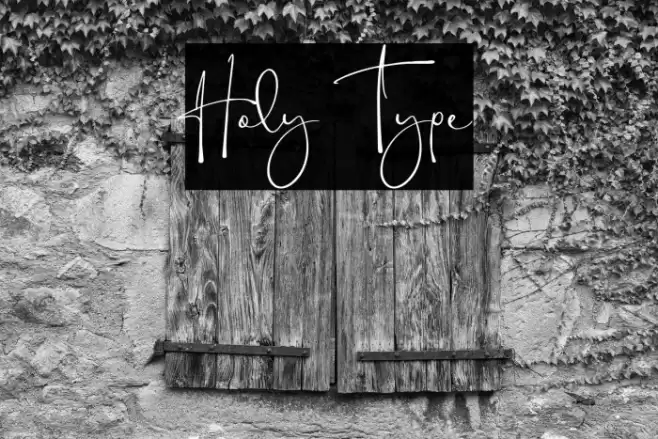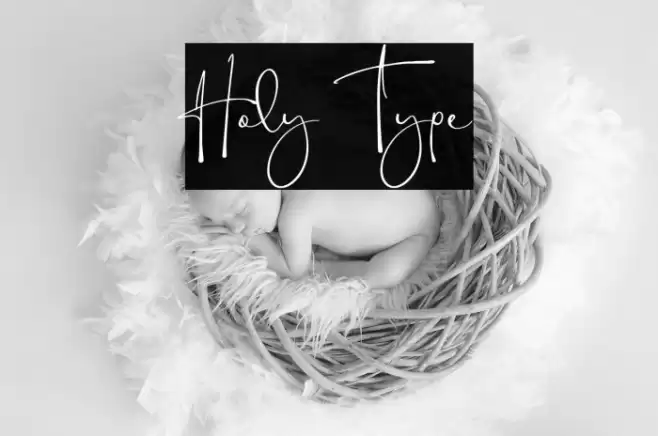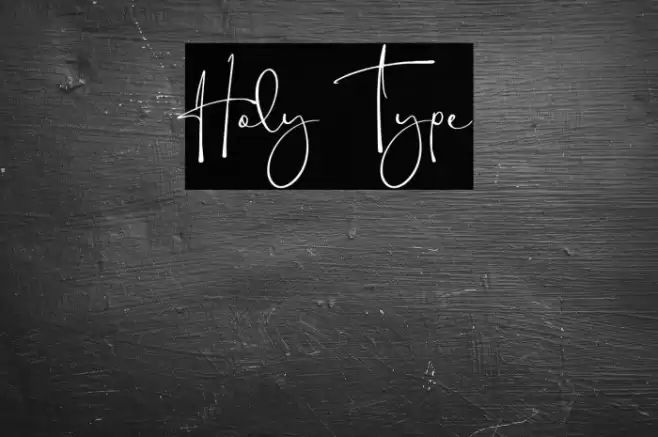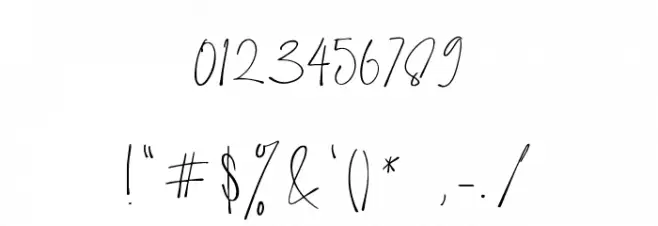
Holy Type Font
Holy Type Description
This font features a whimsical and artistic handwritten style, characterized by its flowing and interconnected letterforms. The uppercase letters are tall and slender, with a playful, almost calligraphic flair. The lowercase letters maintain a consistent style, with loops and curves that add a sense of movement and elegance. The numbers are similarly styled, with a unique charm that complements the overall aesthetic. Special characters are thoughtfully designed to match the font's artistic theme, making it suitable for creative projects. The font's thin strokes and varying line thicknesses give it a delicate appearance, perfect for adding a personal touch to any design.
A whimsical, artistic handwritten font with flowing, interconnected letterforms from Regular fonts.
- Proposed Projects: Ideal for wedding invitations, greeting cards, personal branding, and artistic posters.
- Use Case: Logos, Headlines, Artistic projects